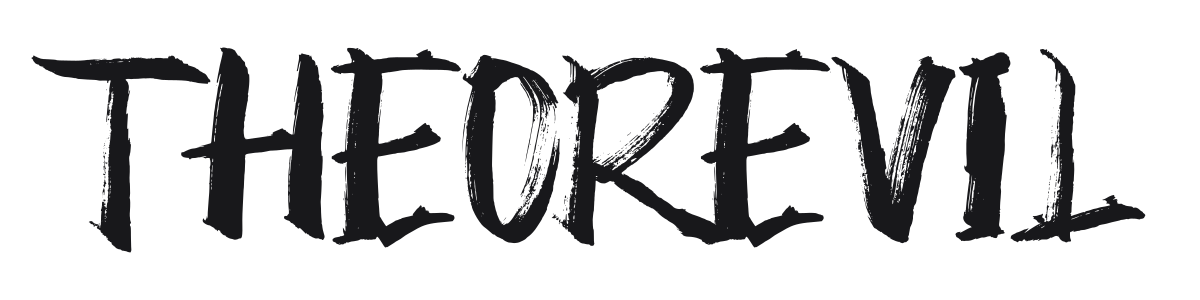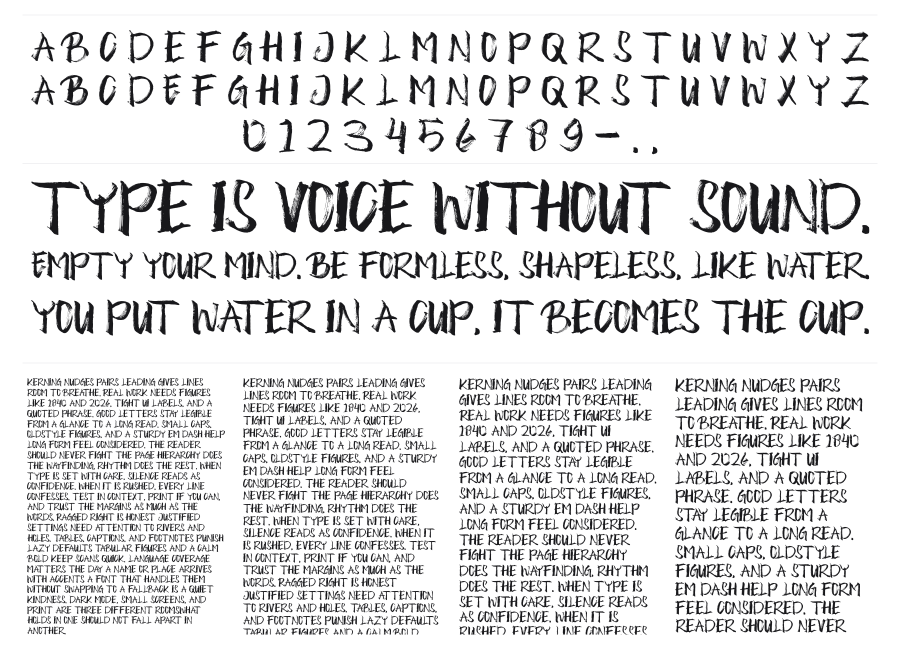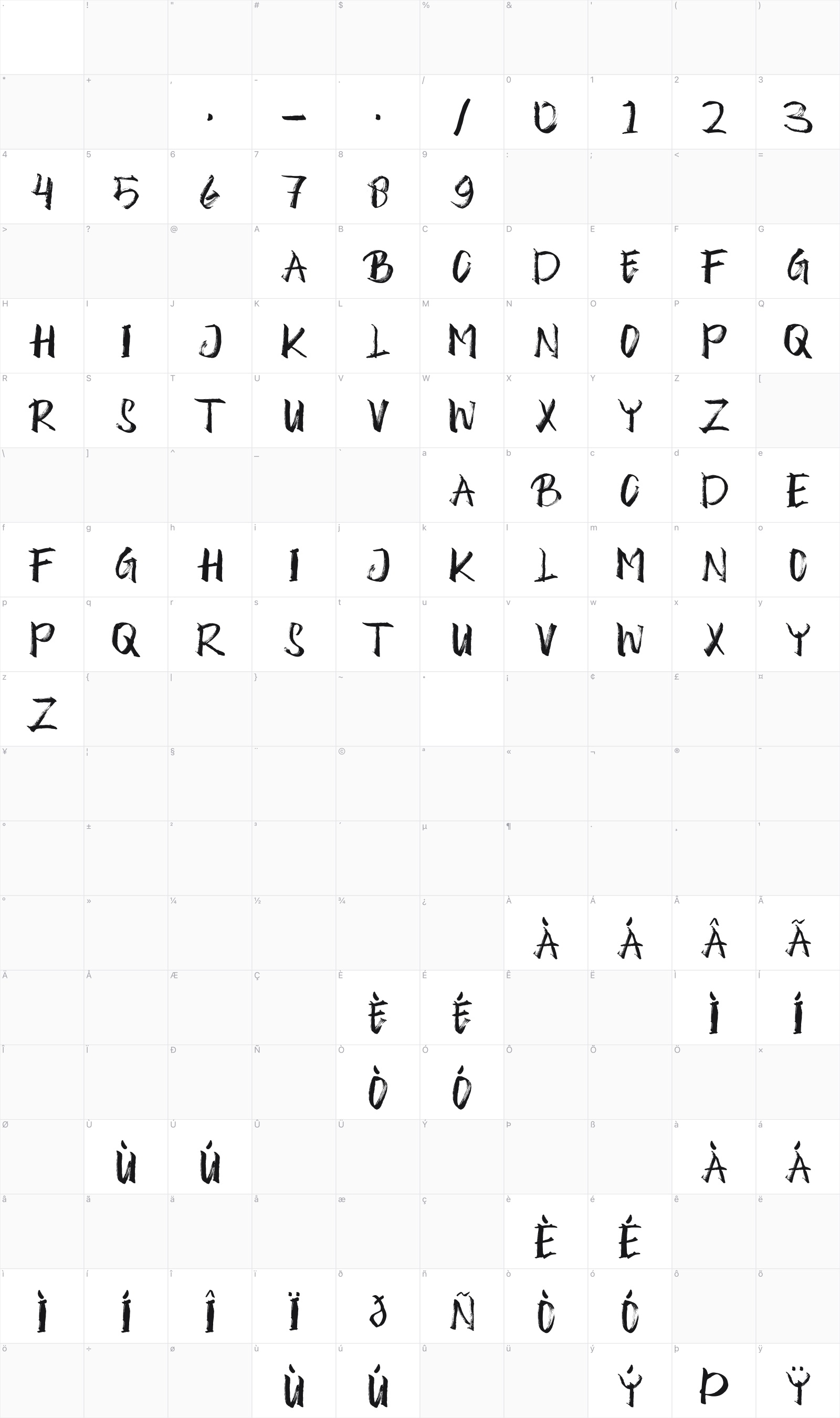
Theorevil
Theorevil is a bold, textured brush script with a raw, aggressive edge. Heavy strokes break into bristle marks and rough ink trails, giving it the feel of paint dragged across a surface with force. It suits anything that needs power and attitude: band posters, horror titles, streetwear branding.